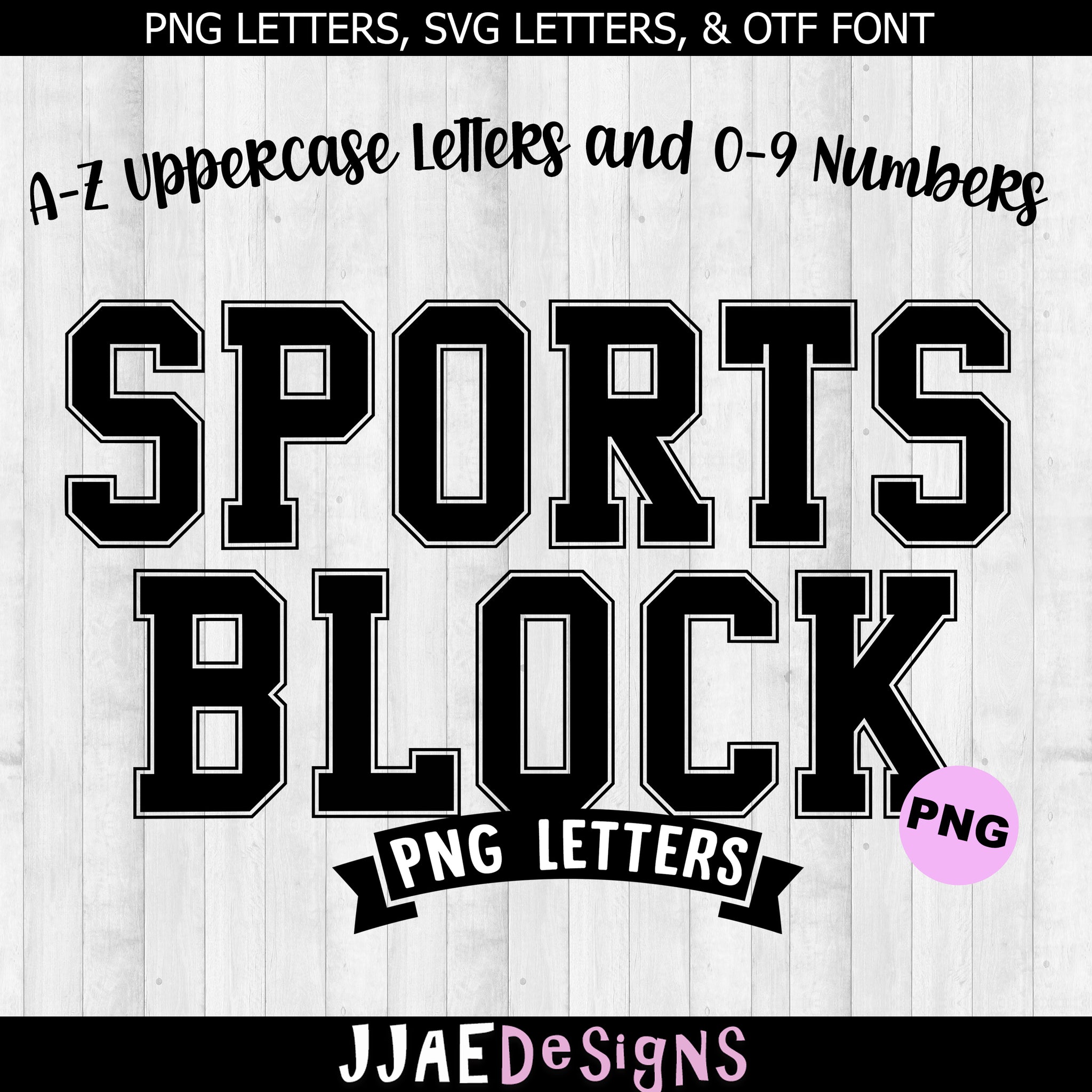
Sports Block Font Letters
Level up your designs with our Sports Block PNG Letters! Perfect for creating bold, energetic visuals, these high-quality letters are ideal for team logos, promotional materials, and personal projects. Easy to use and fully customizable for any sports-themed design.